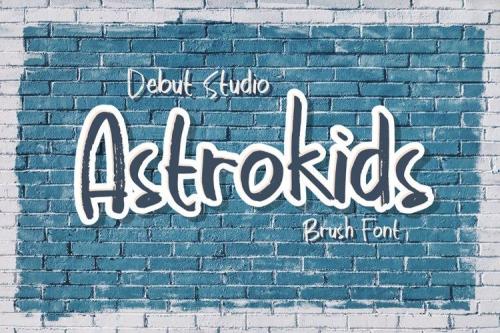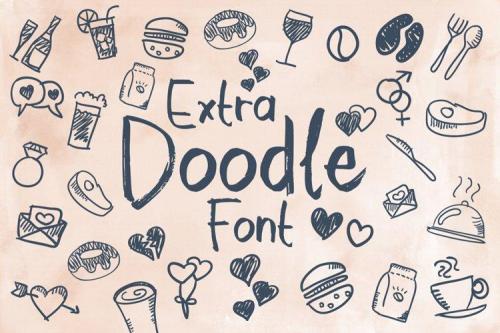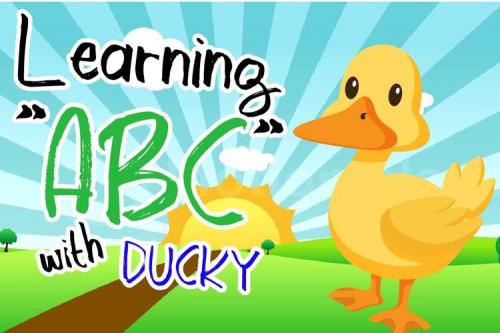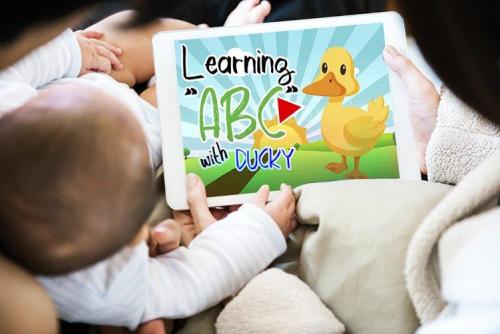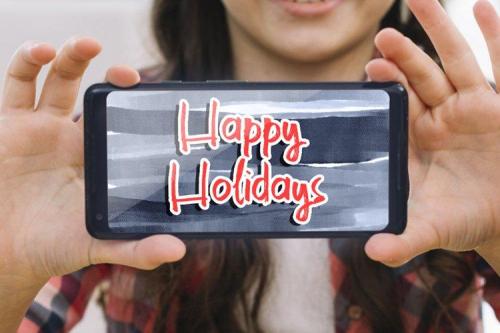
Astrokids has unique style on each letters. This font looks cool using uppercase and lowercase letters and astrokids has 2 files fonts, that Regular and Doodle Version.
This font is suitable for thumbnail videos on your YouTube, birthday card, poster, calendar, and etc